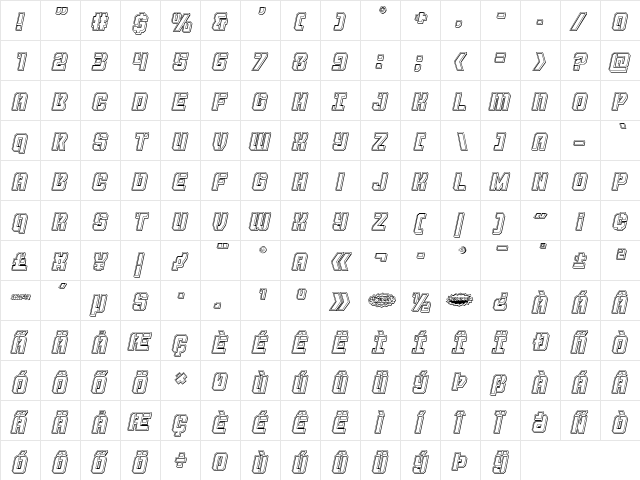
Thunder Trooper Engraved Italic Italic
Design Context for Thunder Trooper Engraved Italic Typeface
Thunder Trooper Engraved Italic brings ornamental detail and strong personality to headlines and identities, where visual impact matters more than quiet functionality. The dynamic lean of this cut emphasises speed and emphasis in any layout.
Font Pairing: Pair with a clean neutral sans-serif for body copy to let Thunder Trooper Engraved Italic's character lead without overwhelming the composition.
Pro Tip: Treat Thunder Trooper Engraved Italic as the centrepiece of your typographic hierarchy. One strong heading set in a decorative face can carry an entire layout.